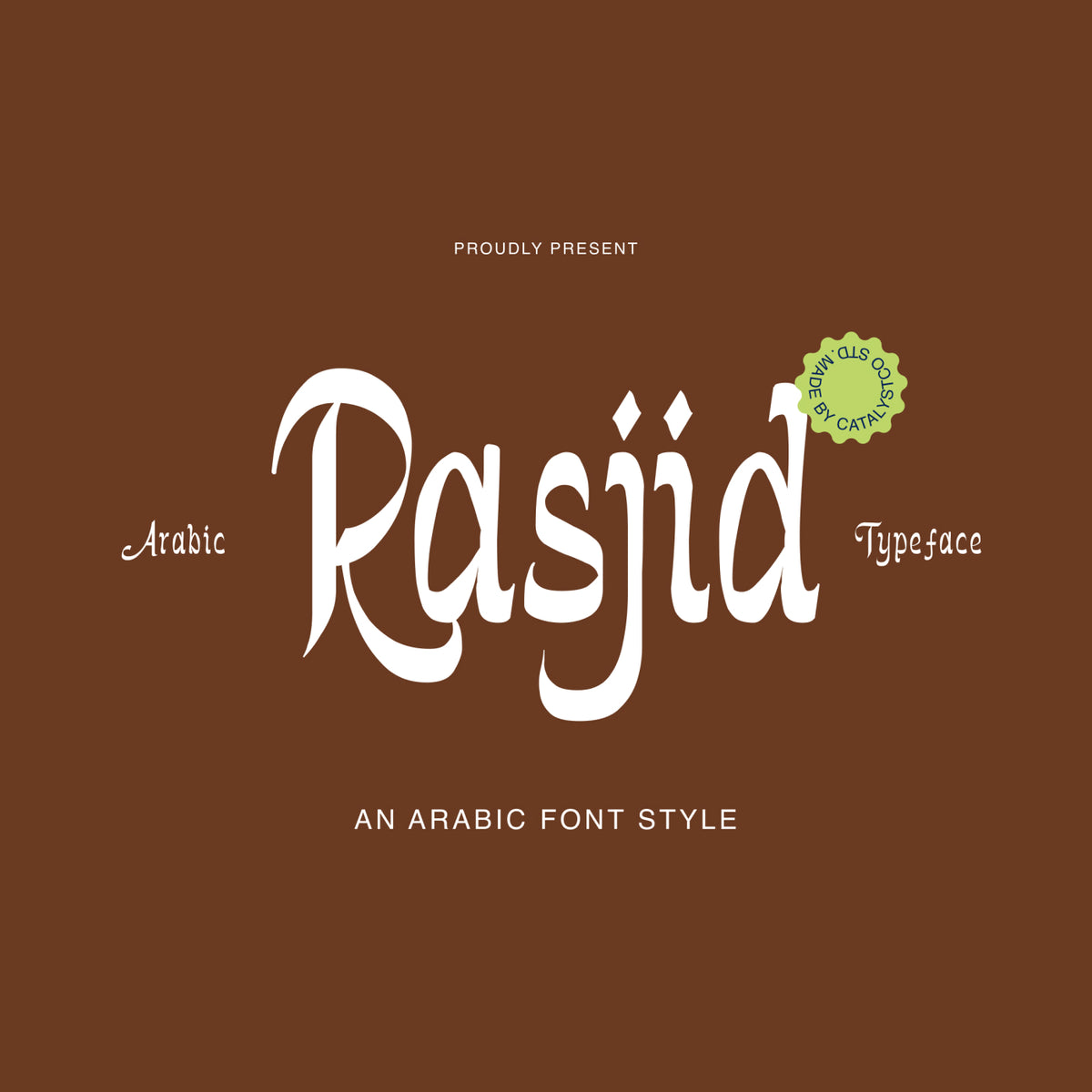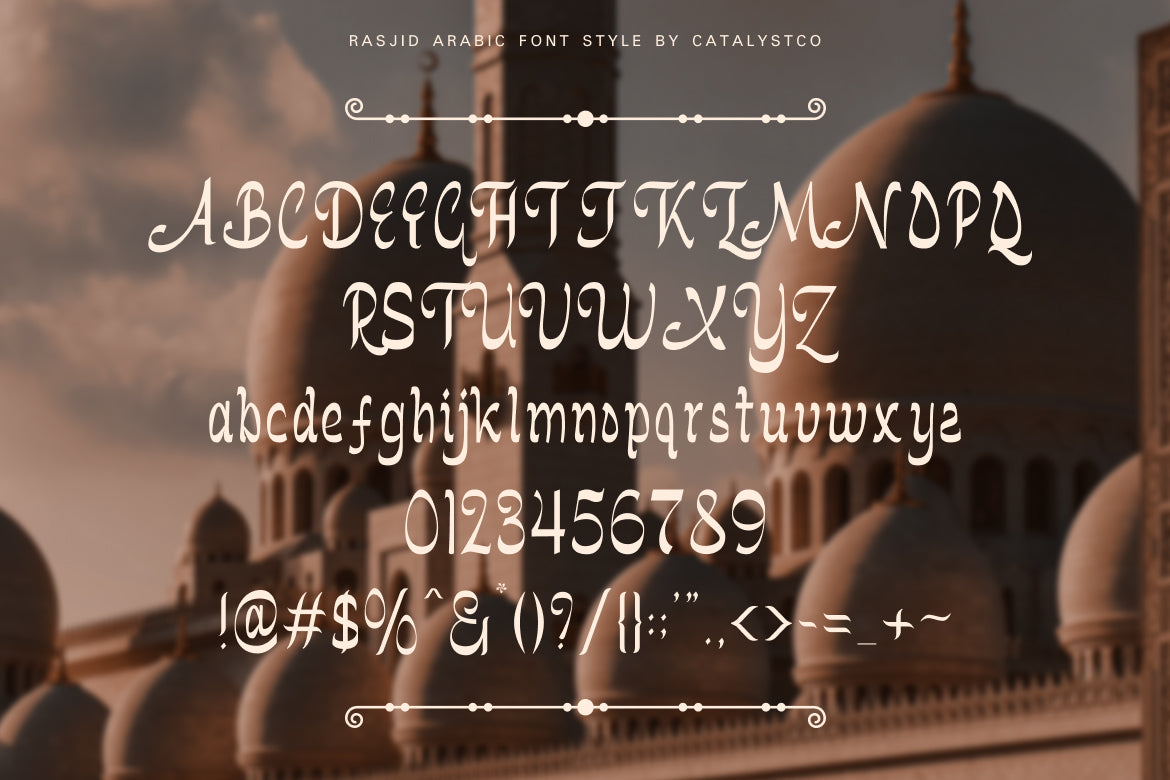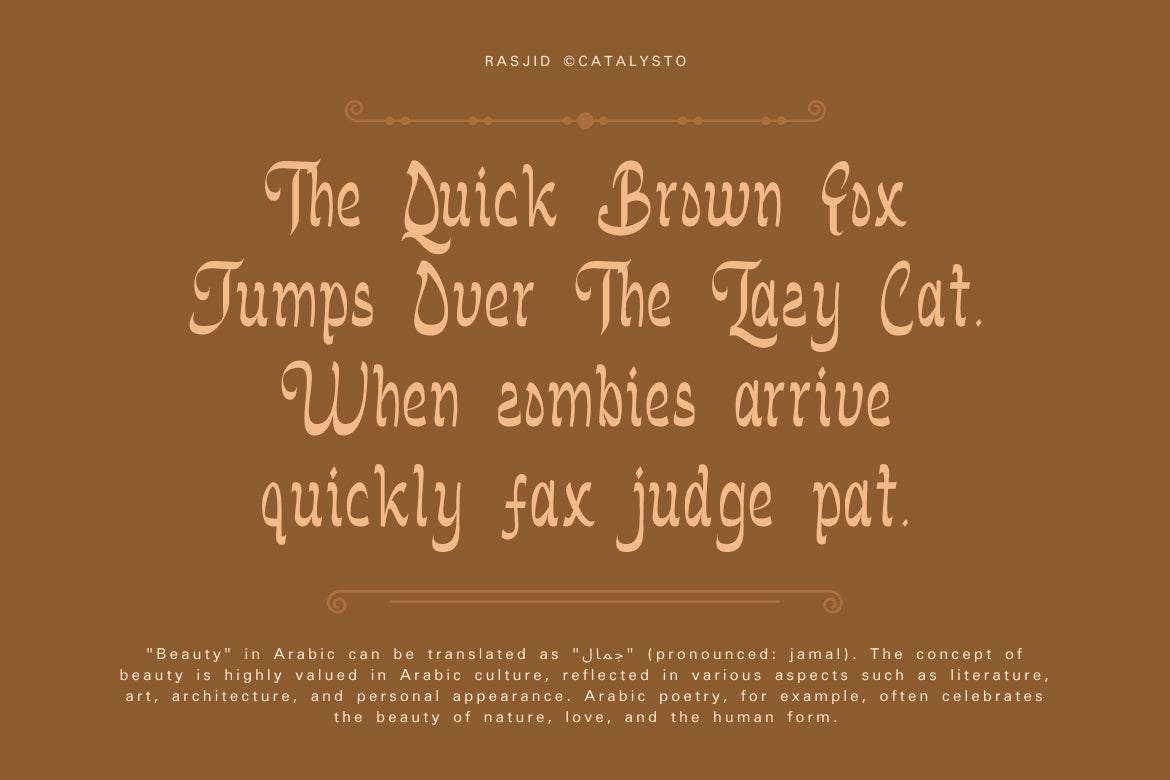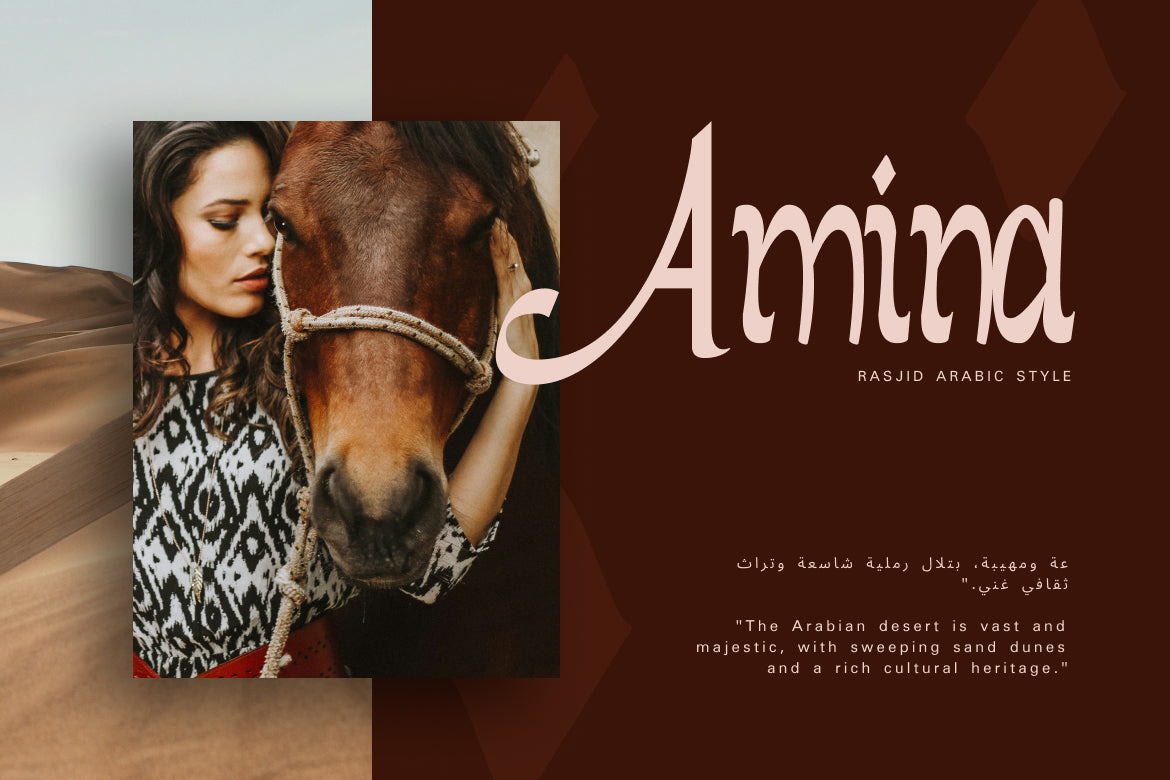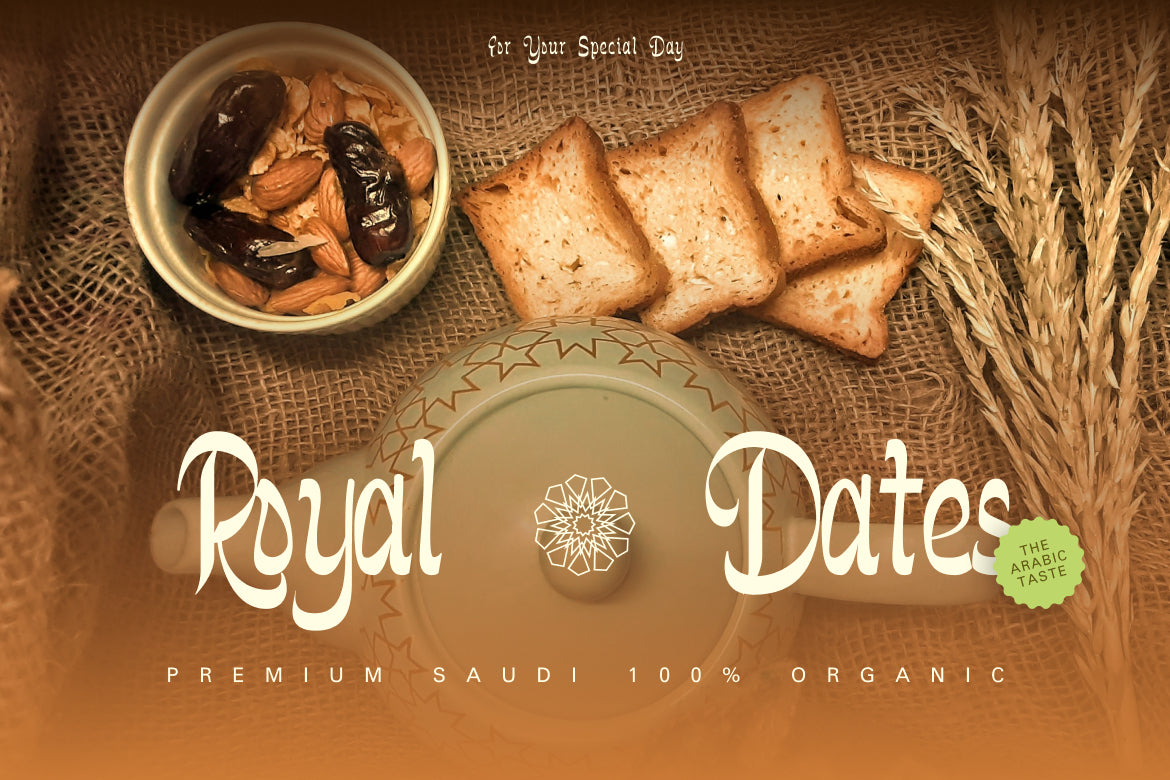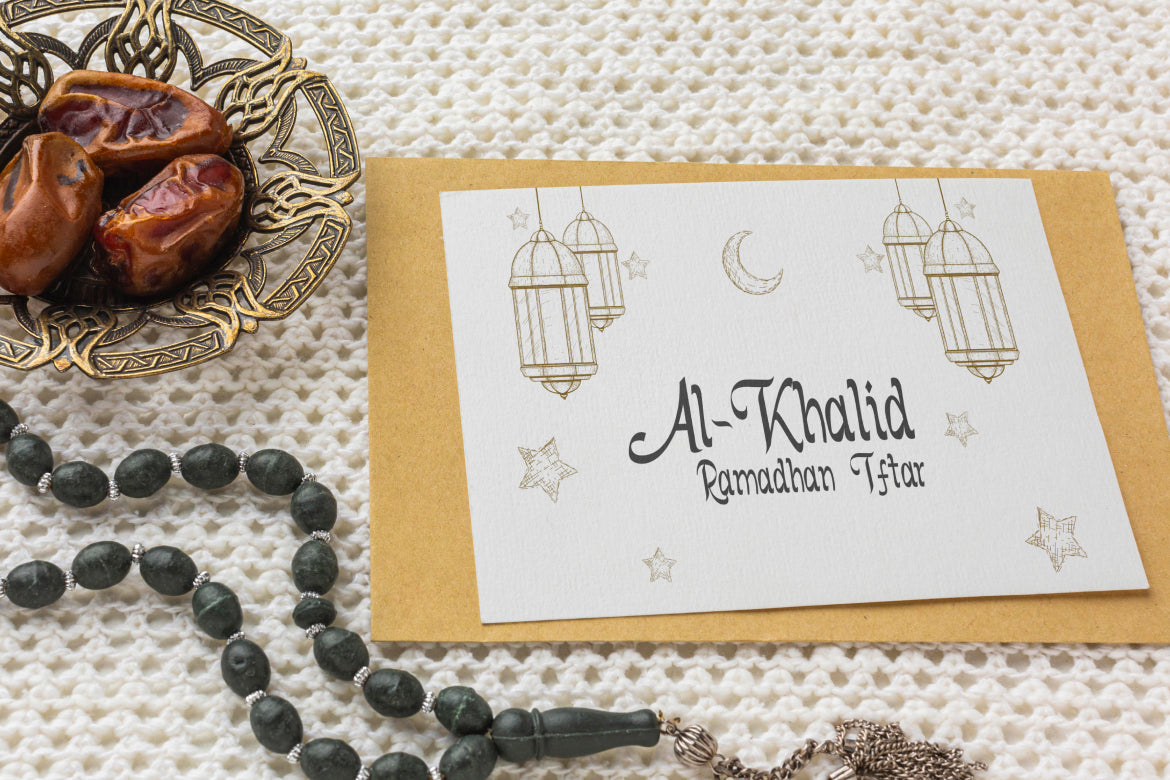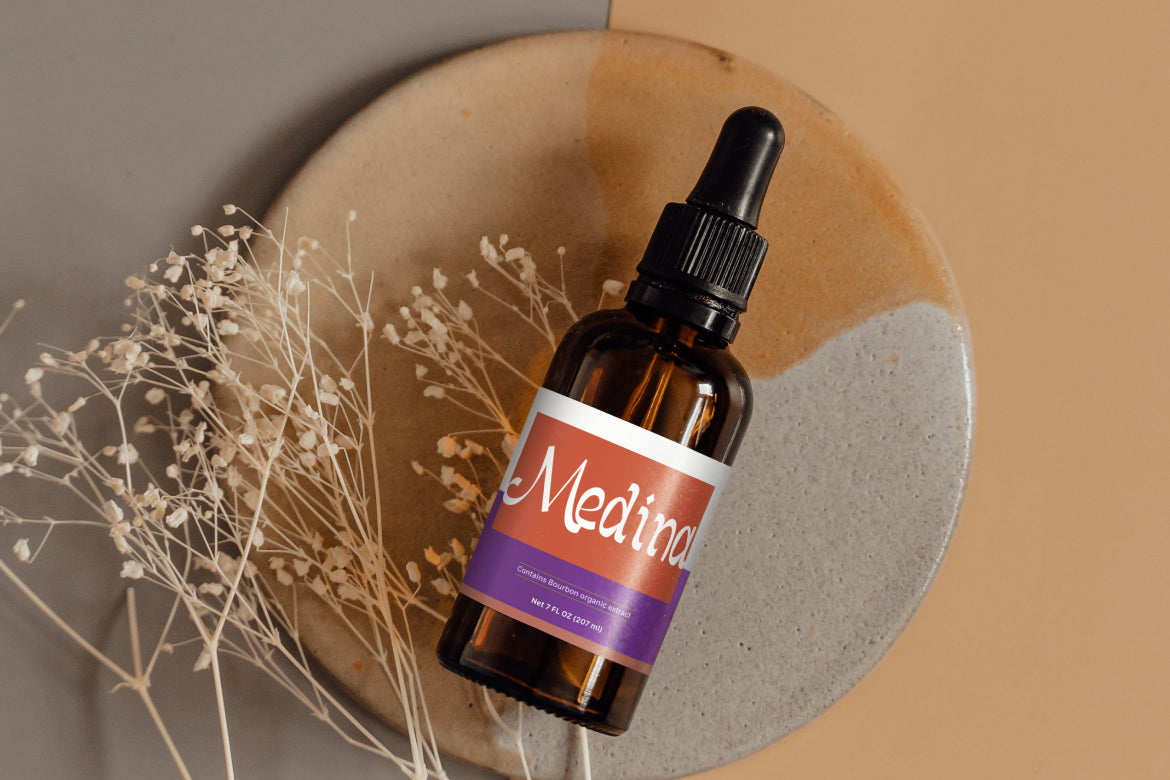
Rasjid Arabic Typeface Font
Rasjid is an Arabic-influenced display font that blends elegant serif detailing with a refined ancient aesthetic. Its flowing curves, decorative terminals, and distinctive calligraphic rhythm evoke the beauty of Middle-Eastern architectural motifs while remaining fully readable for modern design use. This typeface stands out with its classy structure, luxurious proportions, and sophisticated ornamental accents that elevate branding, editorial layouts, and cultural themes. Ideal for creative projects that require a graceful fusion of heritage and contemporary typography.
Rasjid is an Arabic-influenced display font featuring serif detailing, flowing curves, and decorative terminals. It includes uppercase and lowercase letters, numerals, and punctuation, and is available in TTF, OTF, and WOFF formats.